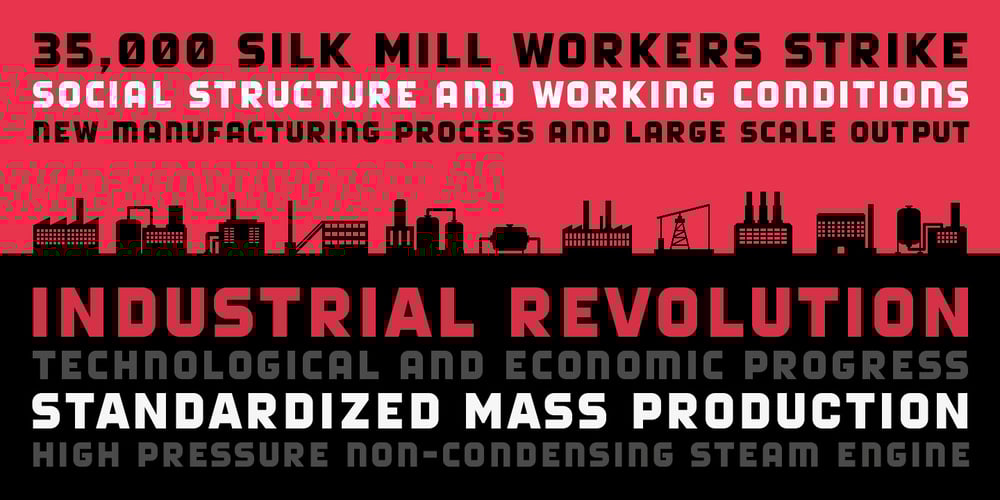
Borgstrand Pro Font Family was designed by Martin Lexelius and published by Martin Lexelius Core. Borgstrand Pro contains 8 styles and family package options. Oozing of old large neon signs, Borgstrand is retro, strong and selfconfident. Being perfectly balanced in stroke, width and height, it is so versatile you can use it for anything; logos, posters, menus, signs, book covers, magazine headlines, and more. Upper and lower case are not entirely the same. Upper case is slightly more strict, while lower has more of a casual feeling to it. The regular style comes along with Borgstrand Web, which is designed for the screen only. It is manually bitmapped for one particular size making it clean and easy to read without anti-aliasing. You can also use Borgstrand for stencils. One version is rounded (faux), and the other one is specifically tuned for making stencils in the real world.